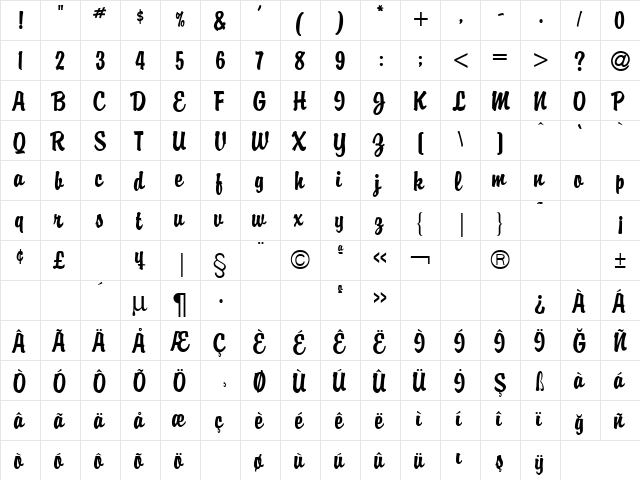
TR Briquet Regular
Design Context for TR Briquet Typeface
TR Briquet takes a measured approach to typography — its balanced proportions and neutral character make it a reliable workhorse for both digital and print work.